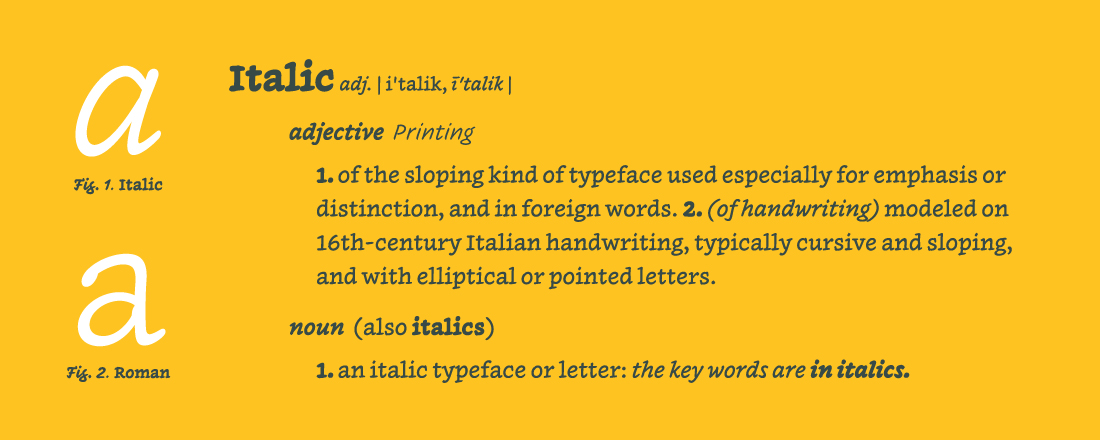
Name: Inkwell
Designers: Jonathan Hoefler and Jordan Bell
Foundry: Hoefler&Co.
Release Date: June 2017
Back Story: Inkwell grew out of a puzzle Hoefler encountered 16 years ago when designing his wedding invitations. “I typeset the invitations, which felt suitably dignified, and a calligrapher hand-addressed the envelopes, which felt both ceremonial and personal, but neither style seemed right for the map,” he says. “Typography made it look too institutional, and calligraphy lent it a strange air of fantasy that felt jarringly out of place for an outdoor wedding in a Brooklyn park.” He found himself wishing he had a typeface with a set of simple block capitals, and maybe some seriffed upper and lower case for text thrown in, to personalize the map and make it clear it was produced by a couple, not a marketing department.
Why’s it called Inkwell? The name feels warm and charming, evoking rows of old-style school desks with built-in inkwells and kids with dip pens scratching away, lending a personal feel to the act of writing—or in this case, typesetting. “Secretly hiding in the name is an imperative, a suggestion to designers to ‘ink well,’” Hoefler says.
What are its distinguishing characteristics? Informal in feeling, Inkwell nevertheless has an underlying discipline and intellectual rigor that sets it apart from most fonts designed to look “handwritten.” Though there are many lovely and professional options such as Ale Paul’s Business Pen—and Monotype recently created a bespoke typeface that duplicates the handwriting of illustrator Quentin Blake—the majority of handwritten-look typefaces are available as free downloads for a reason: no one in his or her right mind would part with good money in exchange for often inconsistent letterforms and awkward letter spacing.
Inkwell offers the small caps, tabular figures, and swashes that are expected features of today’s best faces. To this it adds a calligrapher’s ability to fluidly move between styles as content dictates, and tops it off with a third ingredient: handwriting. “Inkwell has the look of something made not with a brush or a quill, but with a pen—maybe a ballpoint, maybe a permanent marker,” Hoefler says. Each of Inkwell’s styles comes in the same six weights, so it’s easy to preserve typographic color even if you change styles in the middle of a word. The font includes a roman and an italic, plus a sans serif, a blackletter, a script, a Tuscan, and a set of open capitals.
What should I use it for? Inkwell is intended as a text face for content that’s serious and typographically demanding but not deadly earnest. Says Hoefler, “While designing Inkwell, I kept imagining how it could be used for sophisticated projects like maps or menus, not to mention apps and reference books—but why not use it for a birding guide, a cookbook, or the product packaging for an artisanal business?”
What other typefaces do you like to pair it with? “It’s most at home with other styles of Inkwell. We gave it so many different styles to create the kinds of connections and contrasts that usually require using different families,” Hoefler says.